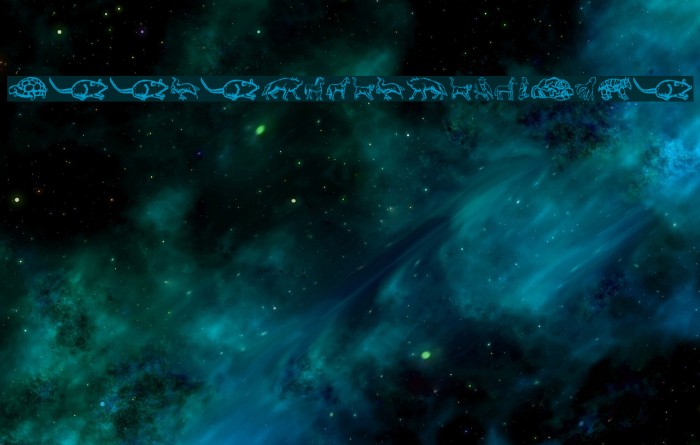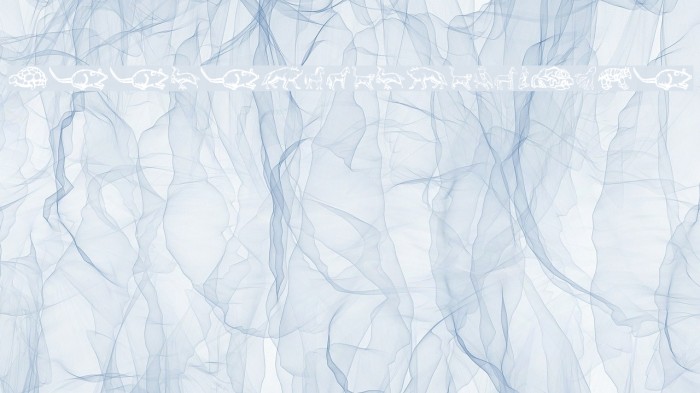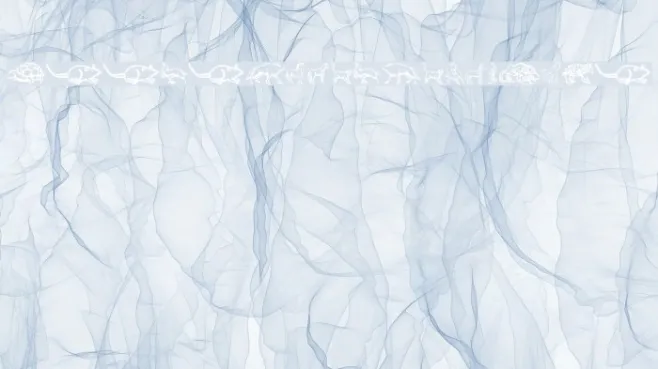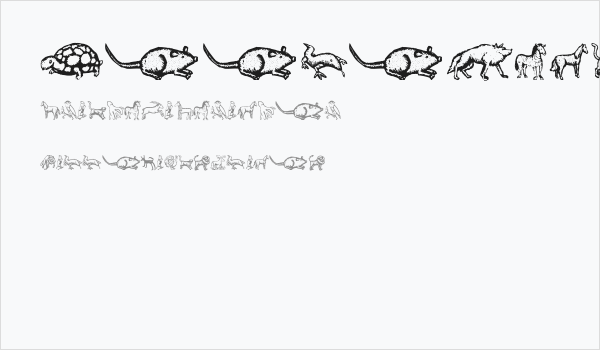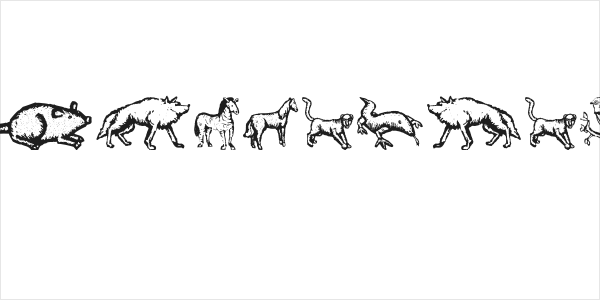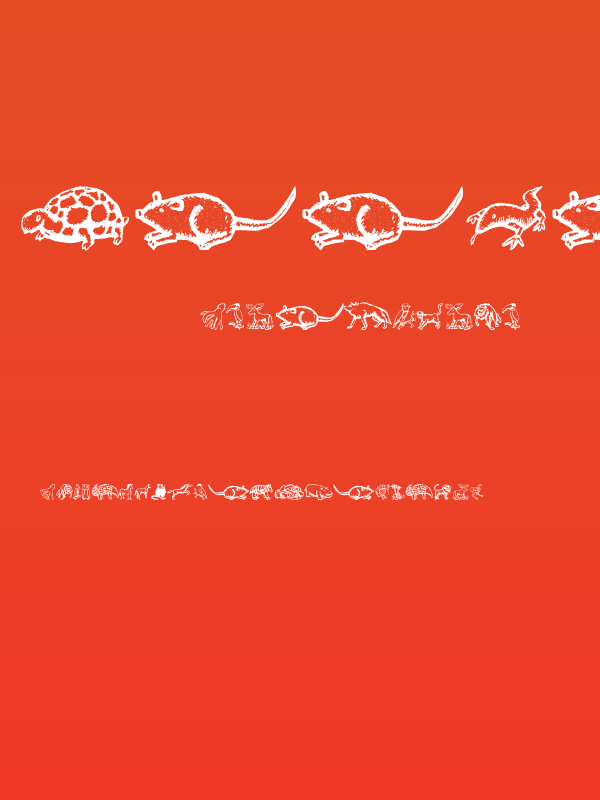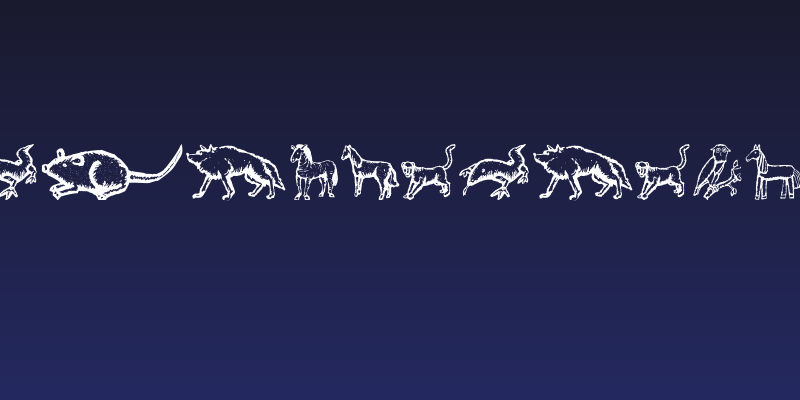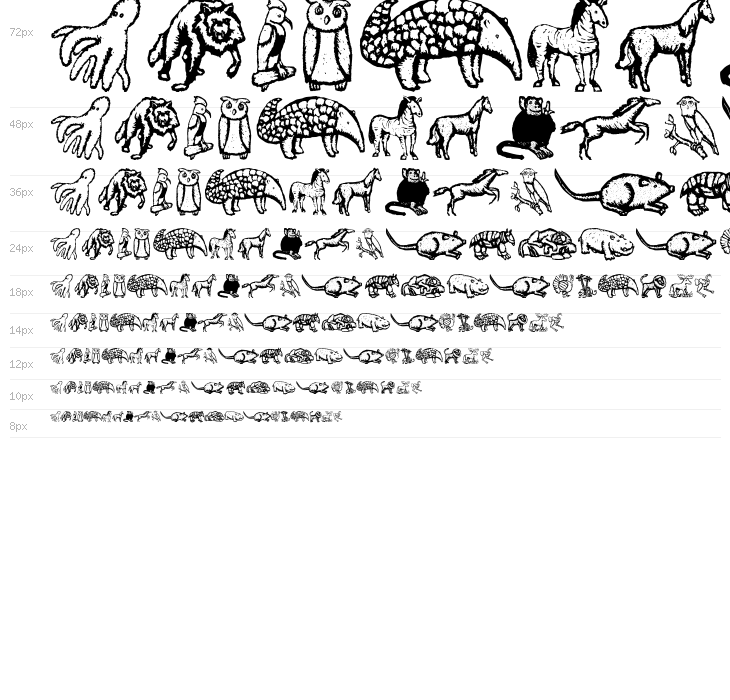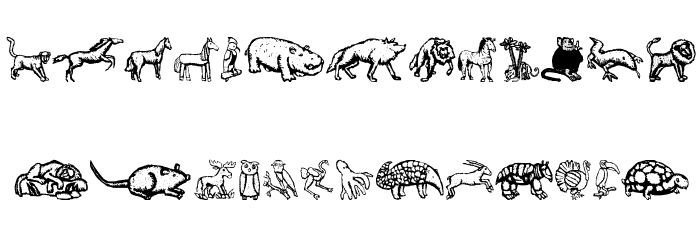
ZoologicalGardenTwo Font
ZoologicalGardenTwo Description
This is a decorative font featuring a variety of animal illustrations. Each character is represented by a detailed and whimsical depiction of different animals, ranging from mammals to birds and reptiles. The style is playful and artistic, making it suitable for creative and themed projects. The illustrations are intricately designed, capturing the essence of each animal with a touch of humor and charm. This font is not meant for traditional text but rather for decorative purposes where each character serves as a unique visual element.
Use CaseLogos, Decorative elements, Themed designs
Proposed ProjectsIdeal for children's books, educational materials, animal-themed event invitations, and creative art projects.